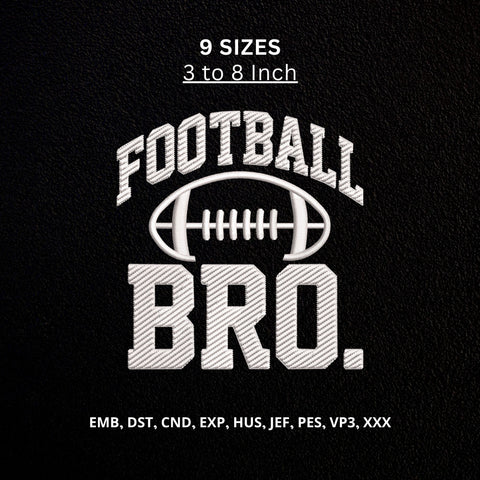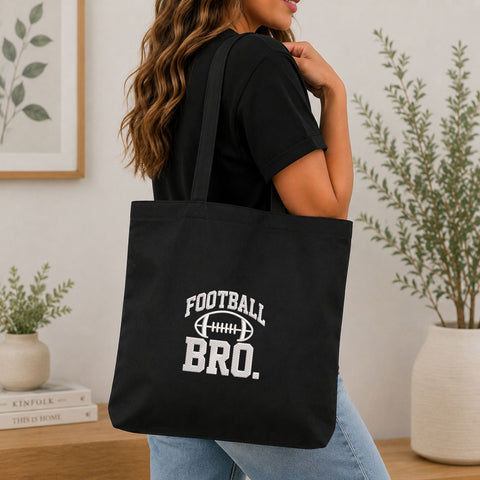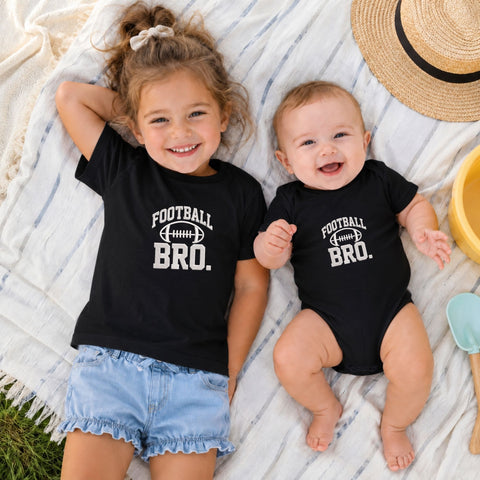
Football Bro Machine Embroidery Design – American Football Brother Sports Embroidery File
Show off sibling pride with this bold “Football Bro.” machine embroidery design, featuring an American football graphic with strong varsity-style lettering. Perfect for football brothers, players, sports families, and fans, this design works great on T-shirts, sweatshirts, hoodies, tote bags, towels, sports bags, and personalized football gifts.